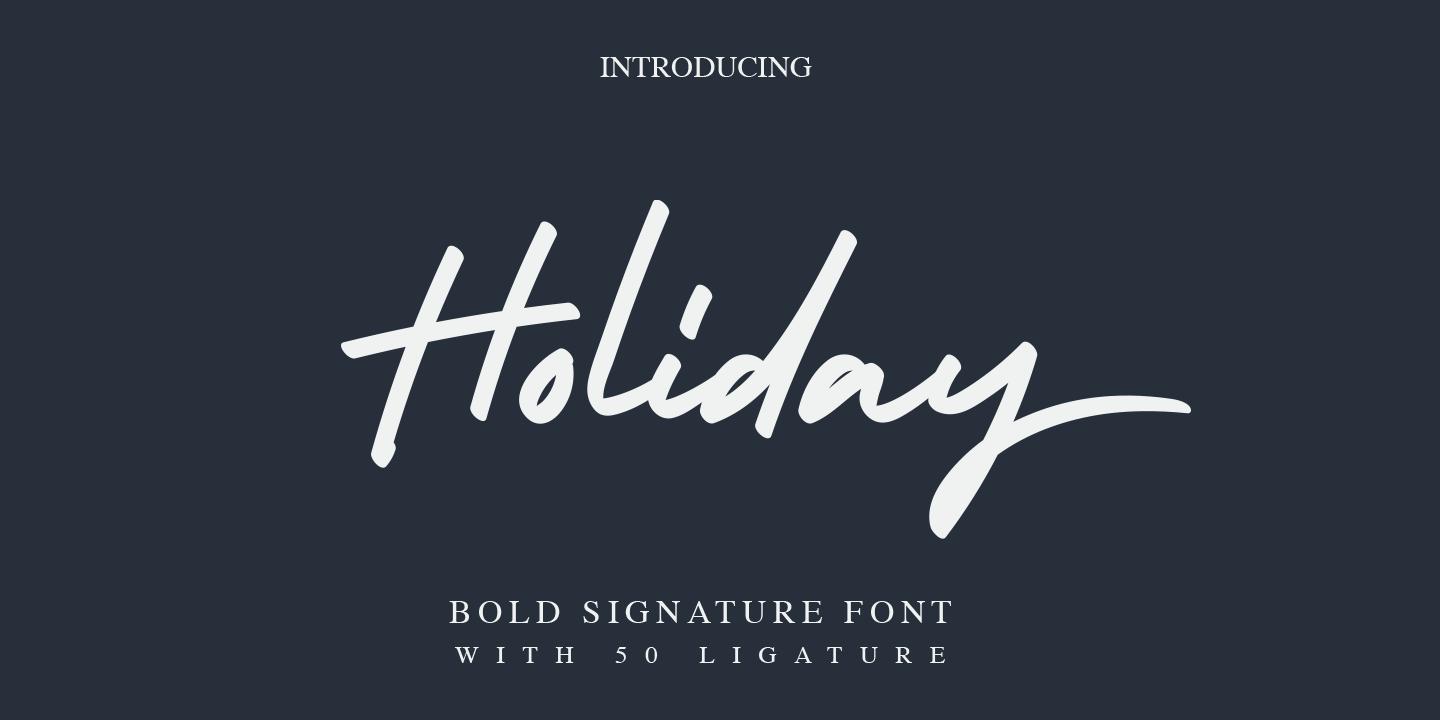
Holiday Font is a playful and cheerful script typeface perfect for seasonal greetings, invitations, branding, and festive designs. Its casual, hand-drawn style evokes warmth and joy, making your projects feel personal and inviting.
What makes Holiday Font Free Download so exciting is its lively curves and friendly letterforms that capture the spirit of celebration and togetherness, adding a delightful charm to any creative work.
The Holiday Font family usually includes Regular and Bold styles, giving designers the flexibility to emphasize different parts of their typography with flair.
Whether you’re designing holiday cards, party invitations, or festive marketing materials, Holiday Font Free Download brings a joyful and heartfelt touch to your creations.